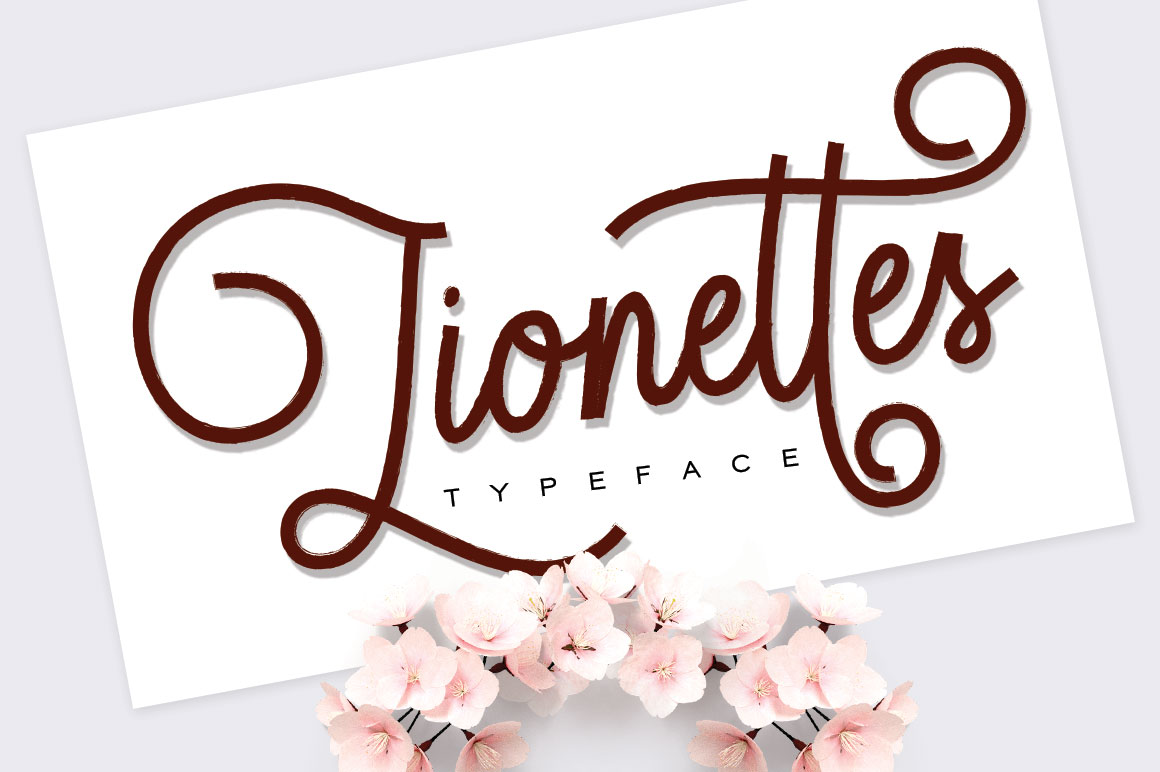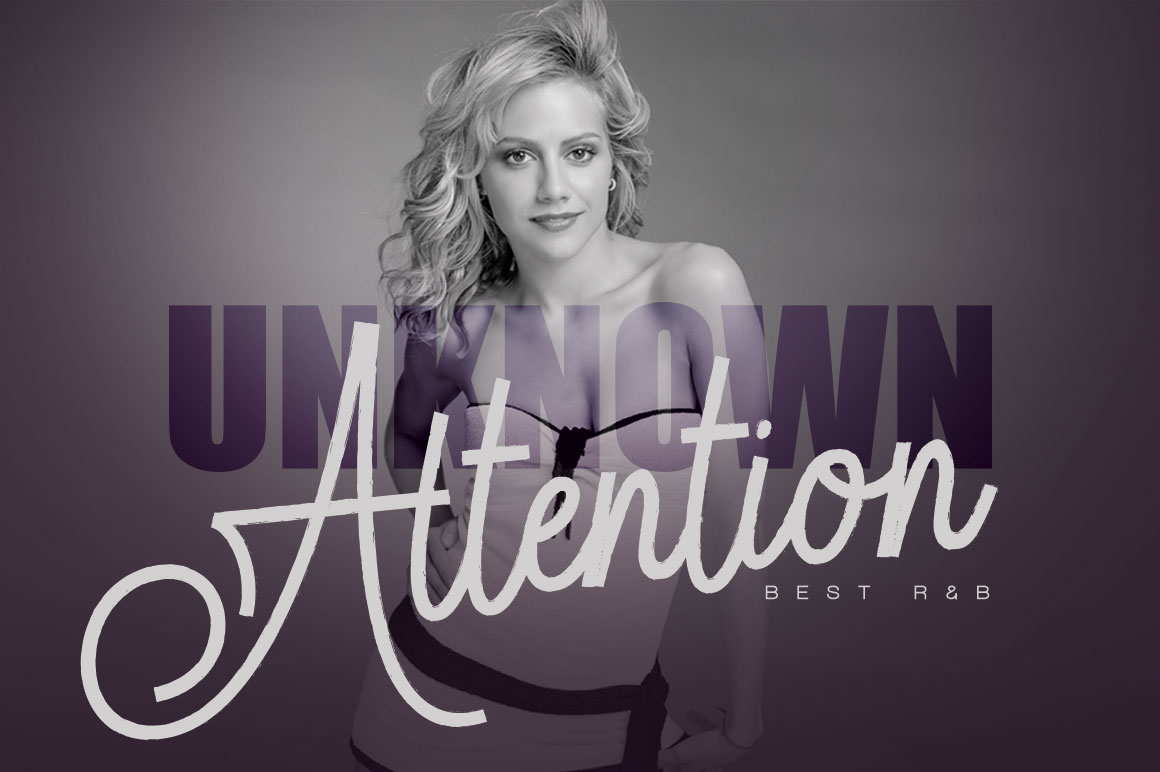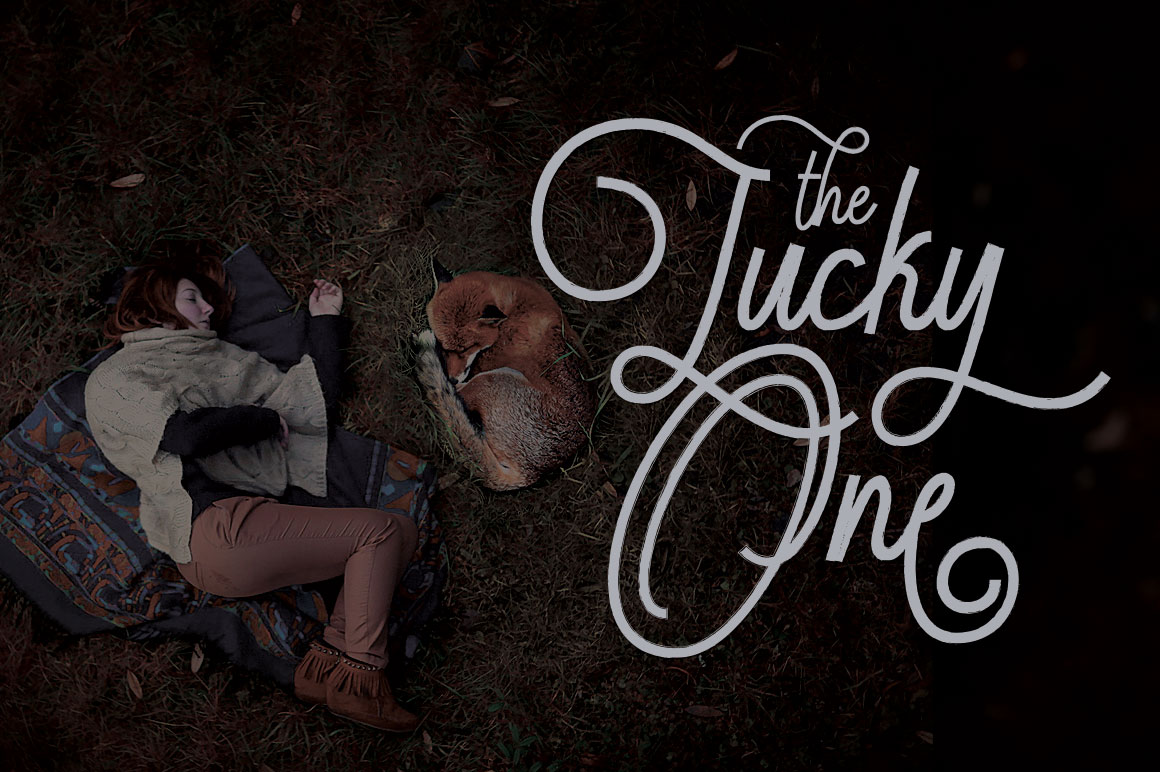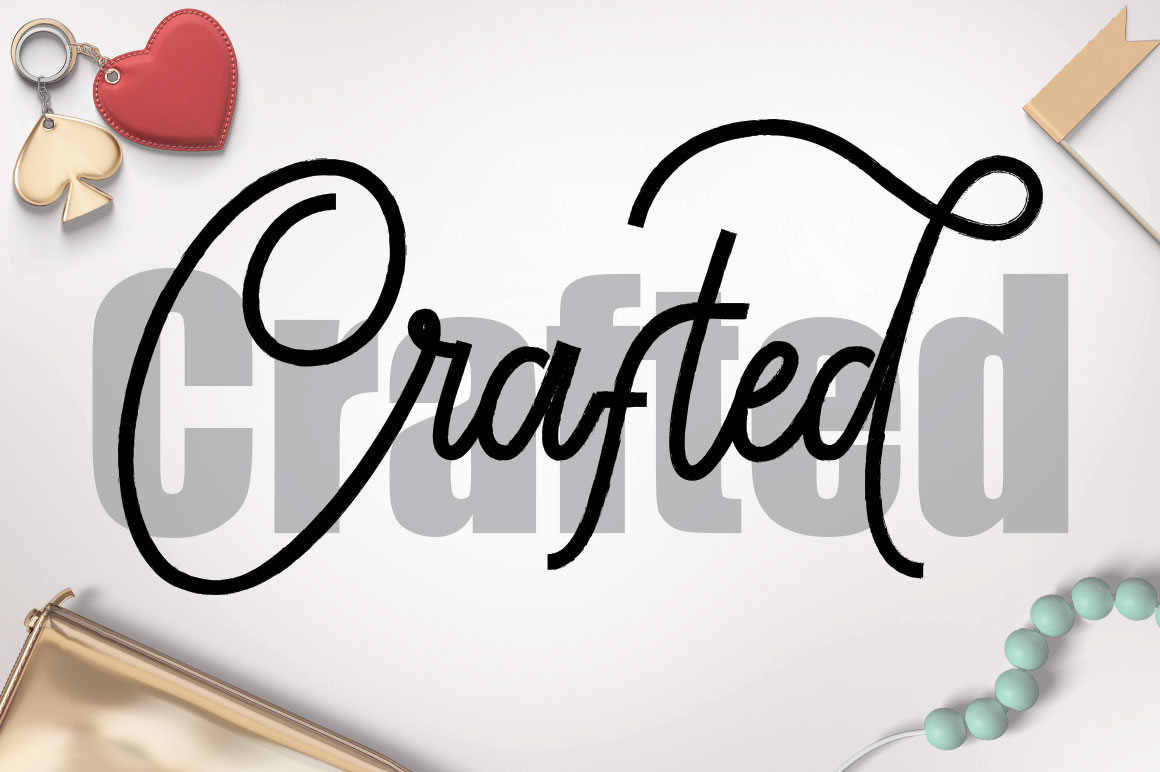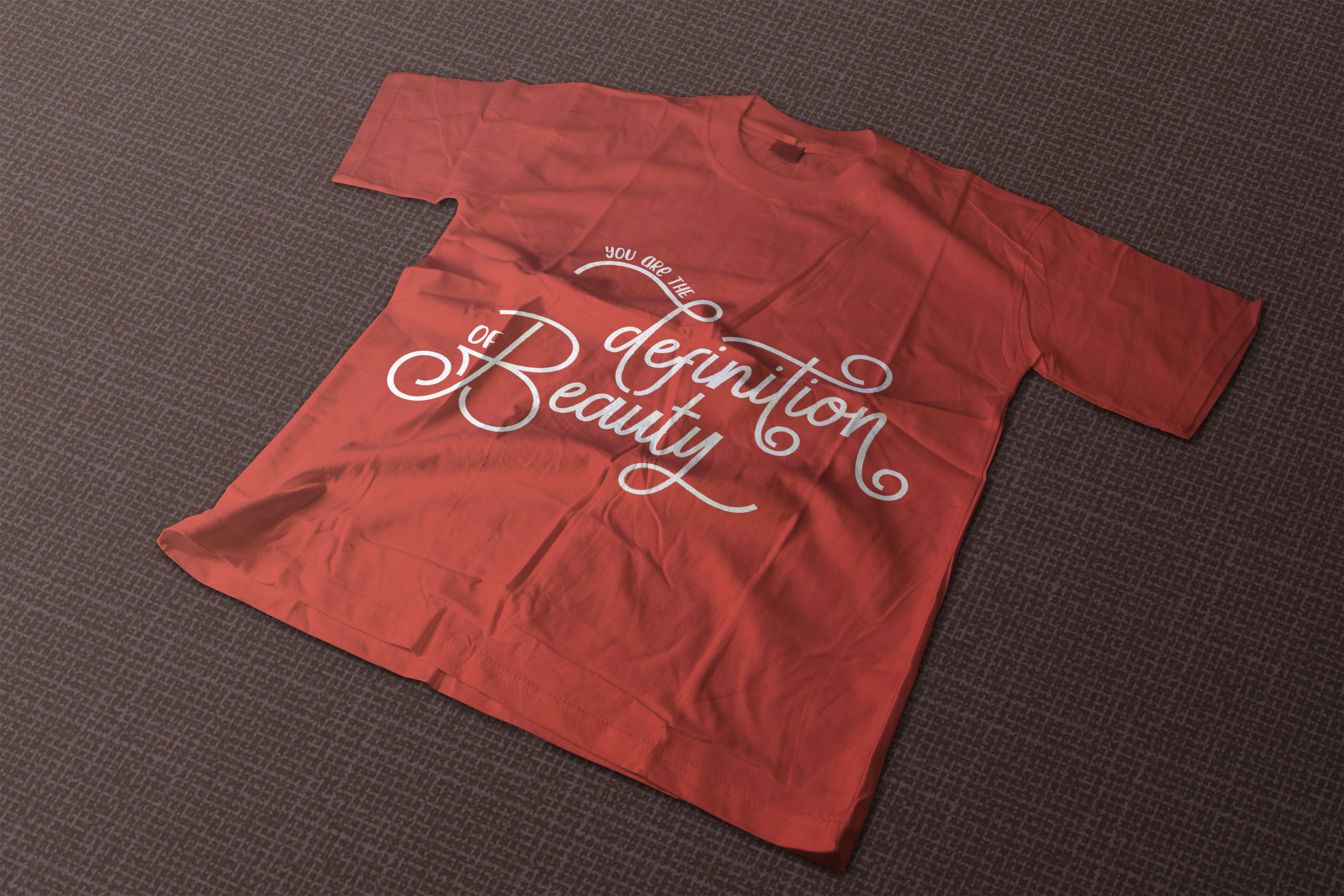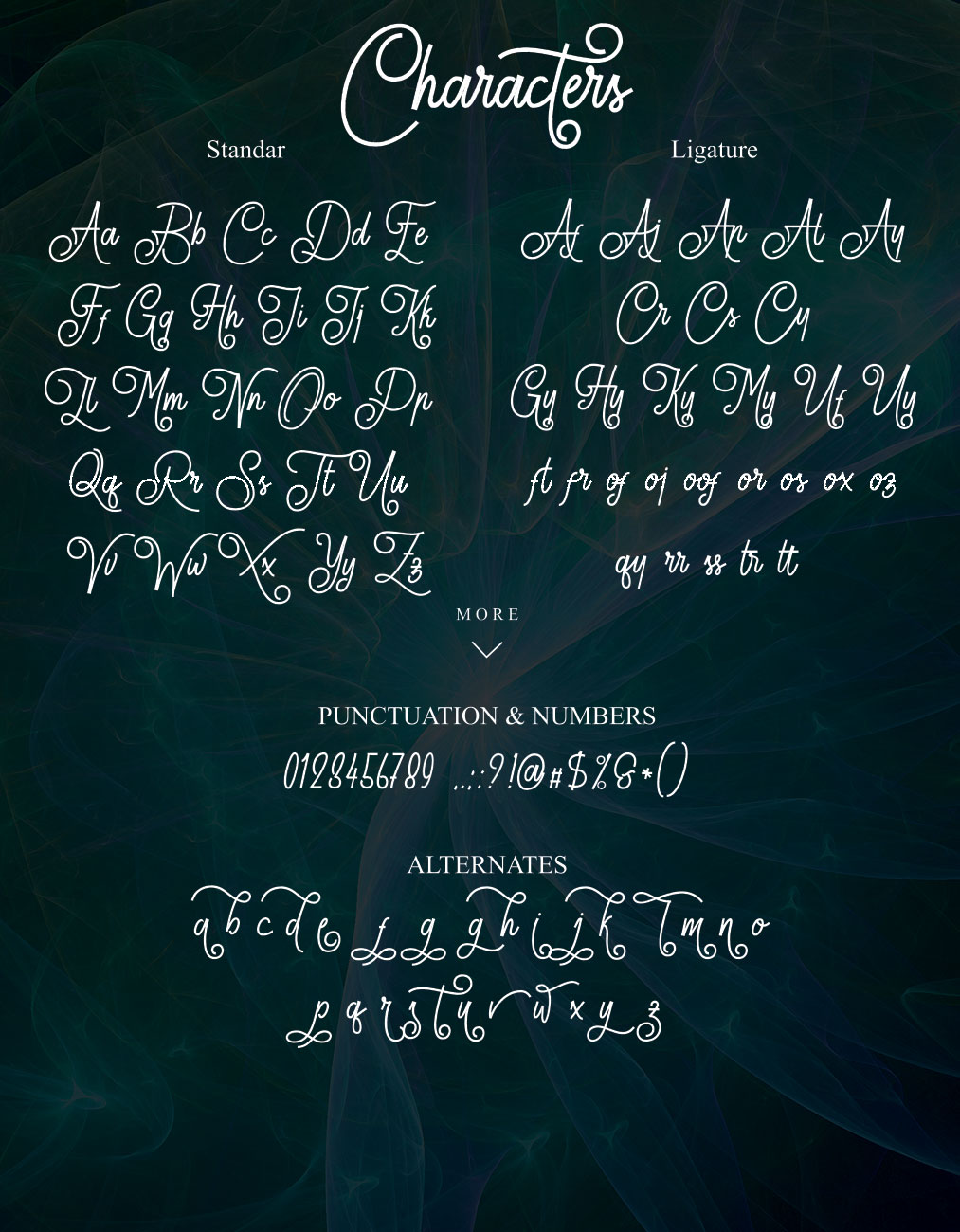
HomeScript FontsLionettes Font Script Fonts Lionettes Font FacebookXPinterestWhatsApp Lionettes Font Poster 2 Lionettes Font Poster 3 Lionettes Font Poster 4 Lionettes Font Poster 5 Lionettes Font Poster 6 About Lionettes Font Lionettes is a modern, PUA encoded script. It has a fluid feel with solid monoline style strokes. DOWNLOAD ON CREATIVE FABRICAThis font is sold and delivered by Creative Fabrica. Font Canyon may earn a commission if you buy through this link. People also explored Hen Basket Homeland Font Signature December Font Lovelova Font April Font Jhonny Welbecky Font Hello Farmer Font Signatria Font Fruit Squirting Font Fall Doodles Font 374 0 TagsLionettes Font Previous articleRoman Love Story FontNext articleBarbara Script Font LEAVE A REPLY Cancel reply Comment: Please enter your comment! Name:* Please enter your name here Email:* You have entered an incorrect email address! Please enter your email address here Website: Save my name, email, and website in this browser for the next time I comment. Personal Use Free Peachy Rose Personal Use Free Read more about this font Amellis Path Personal Use Free Read more about this font Anders Personal Use Free Read more about this font England Personal Use Free Read more about this font BLOG The 10 Best Handwriting Fonts to Add Personality to Your Designs 10 of the Best Handwriting Fonts for Adding Personality to Your Designs There will undoubtedly be no other better choice than handwriting fonts to give... Free Fonts Risk: Why Free Fonts Can Be Dangerous for Designers How to Install and Use Fonts on Windows, macOS, and Web Projects Modern Sans-Serif Fonts That Brands Love in 2025